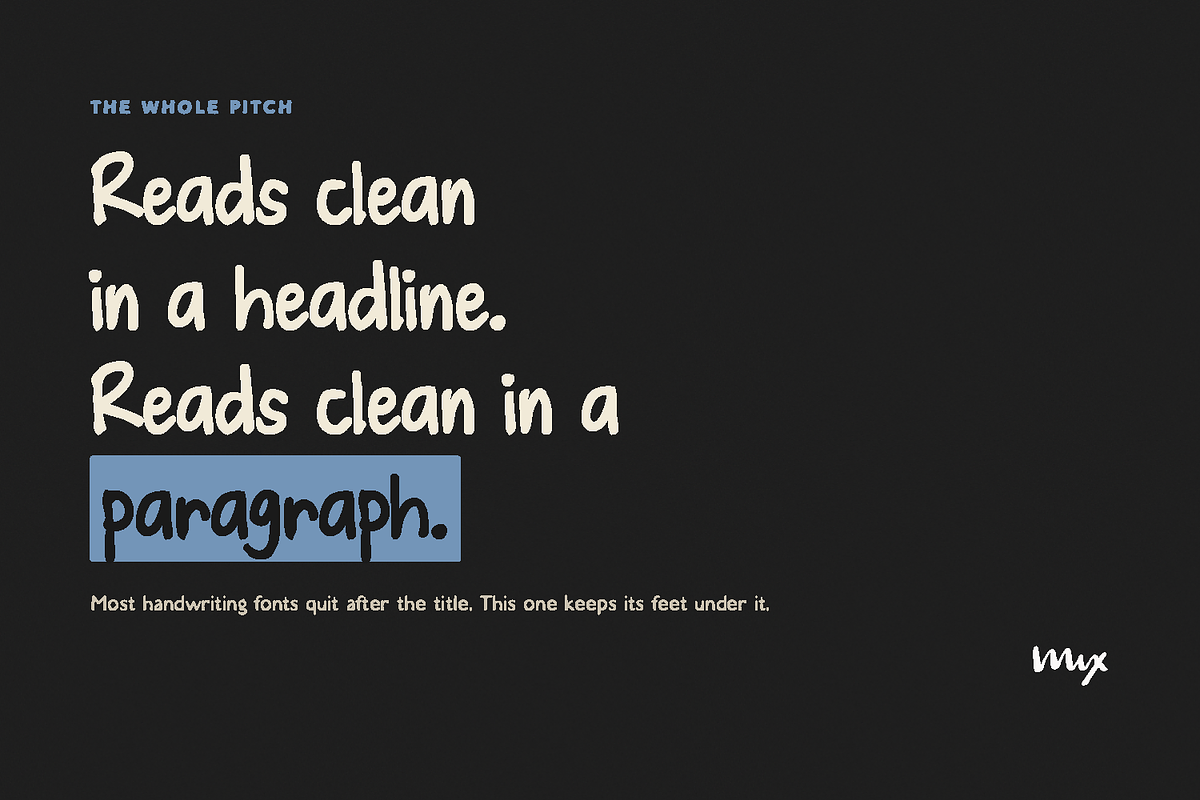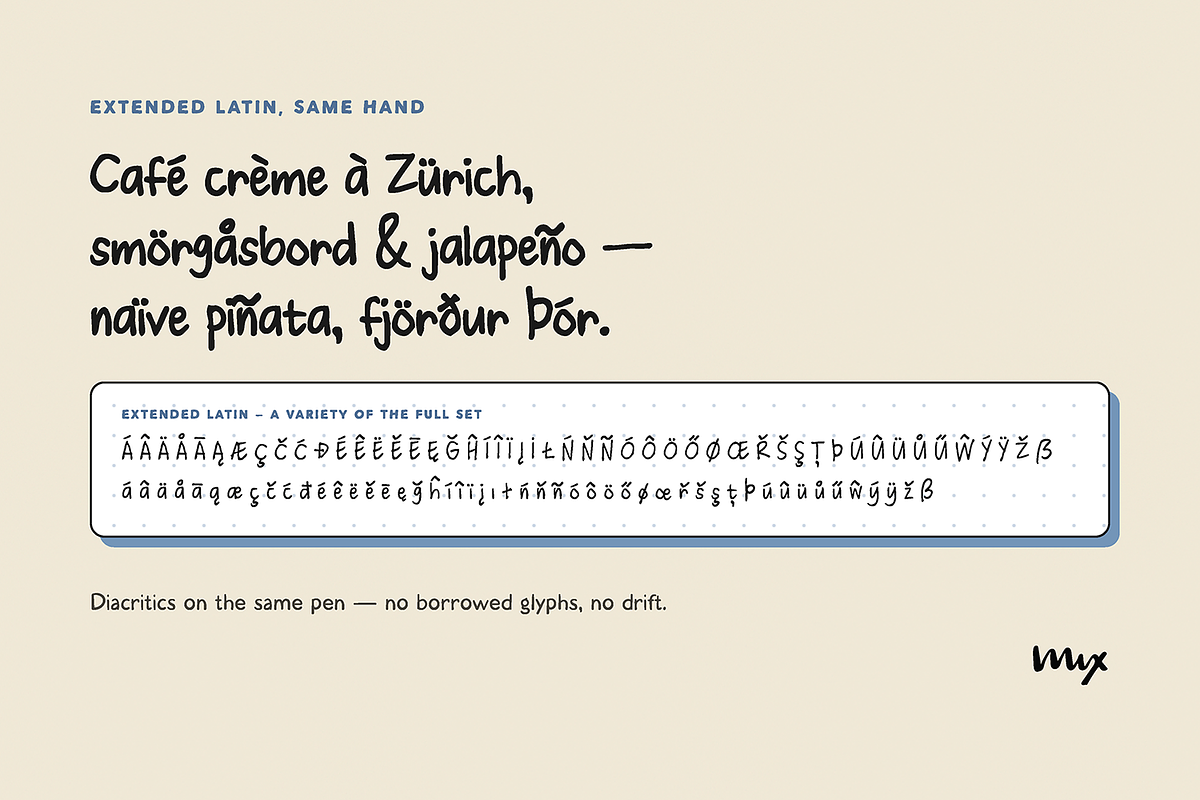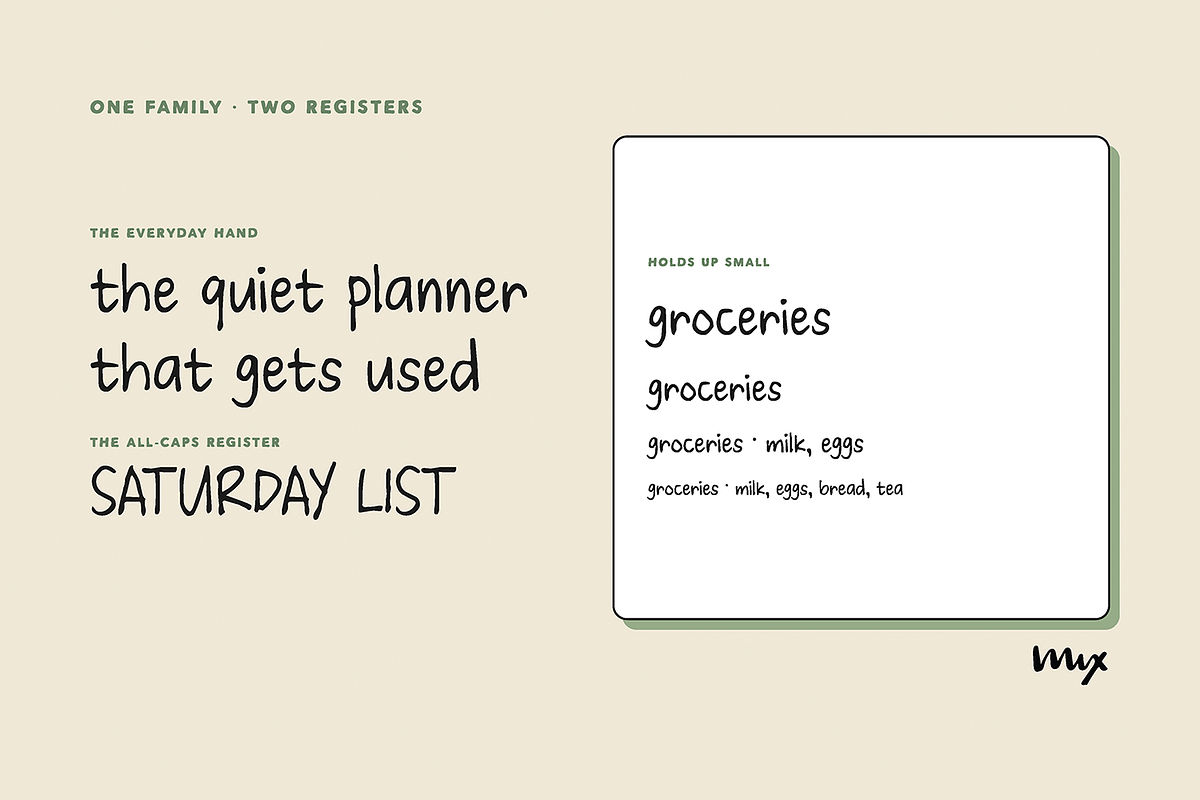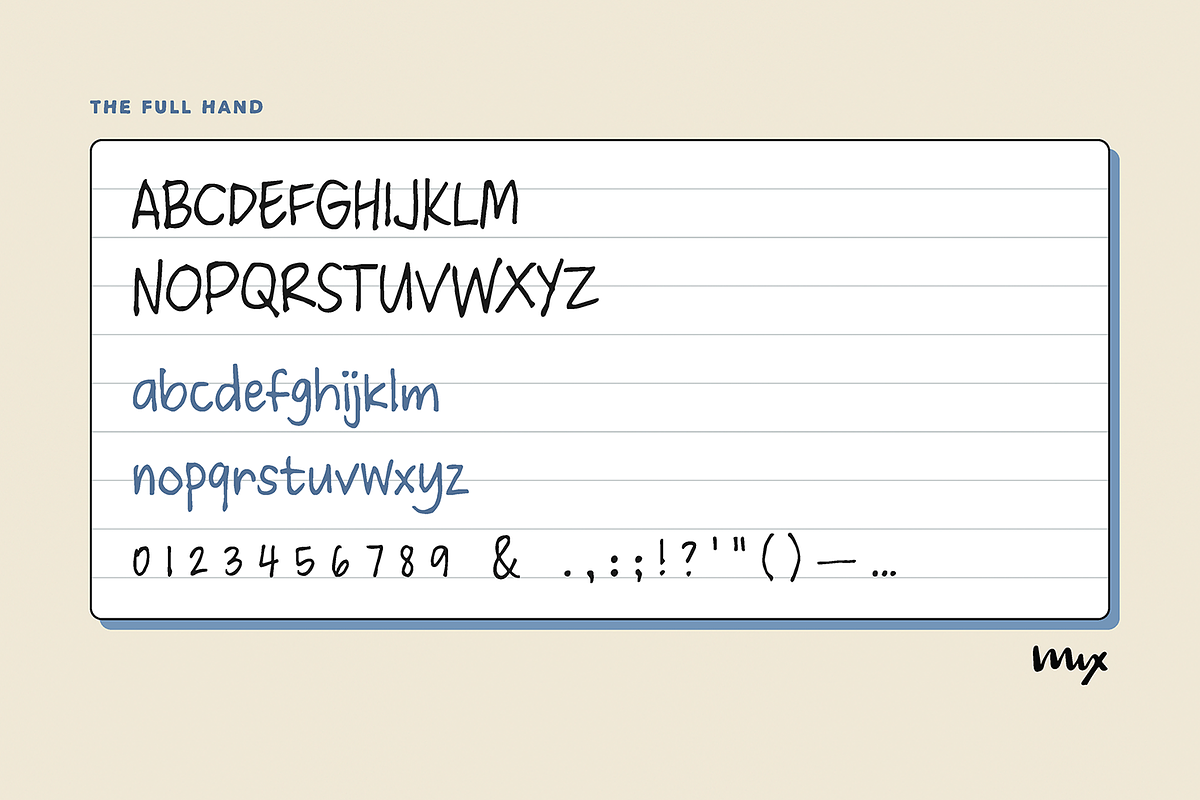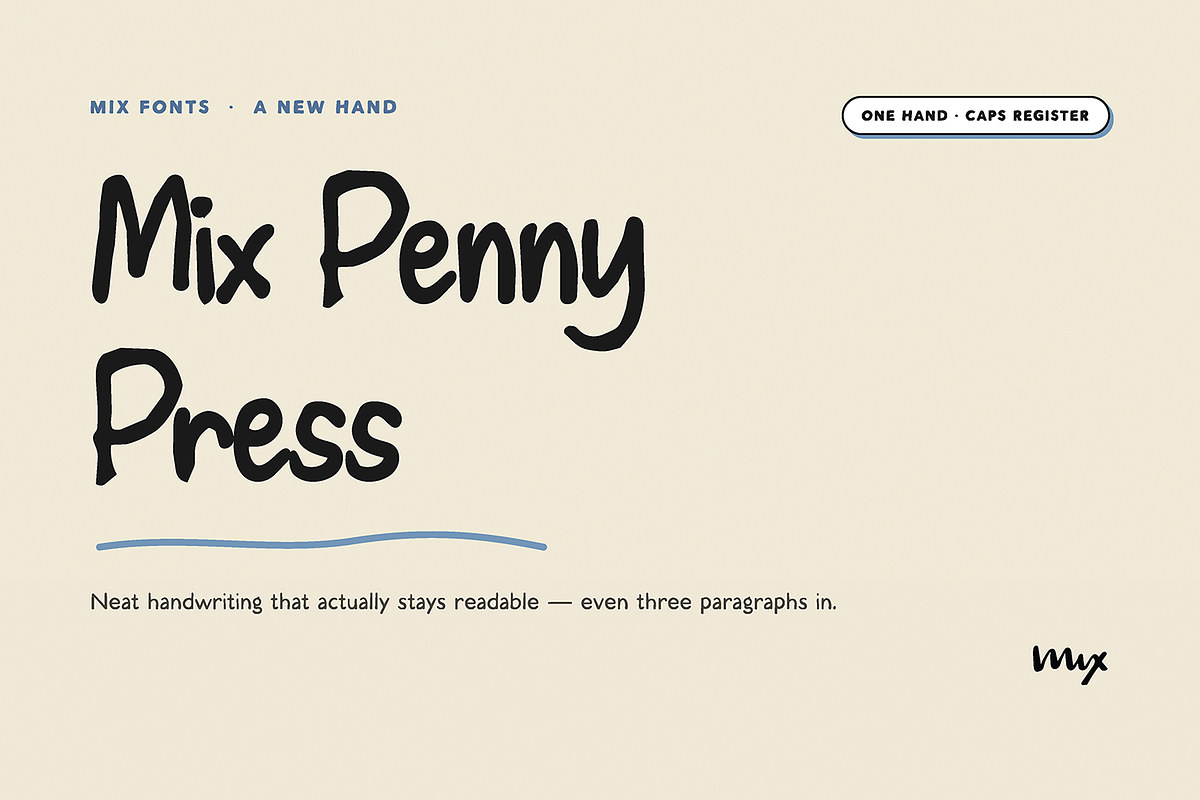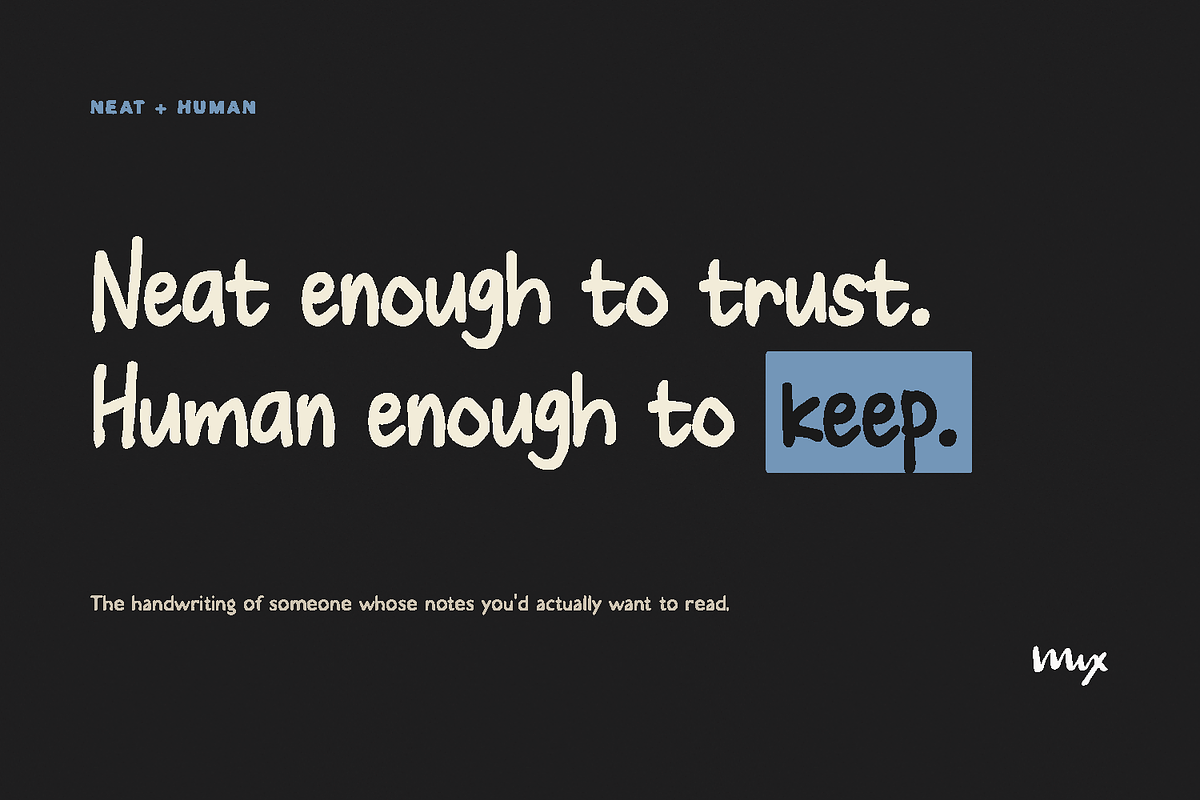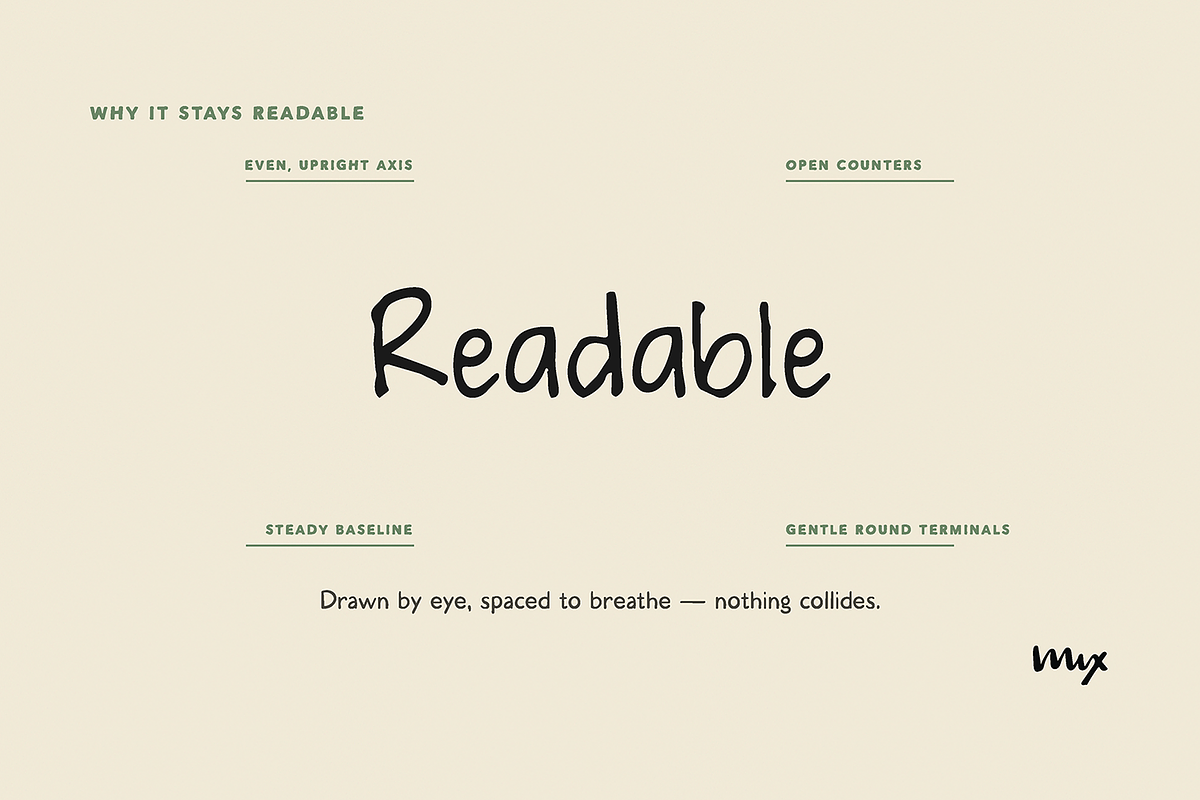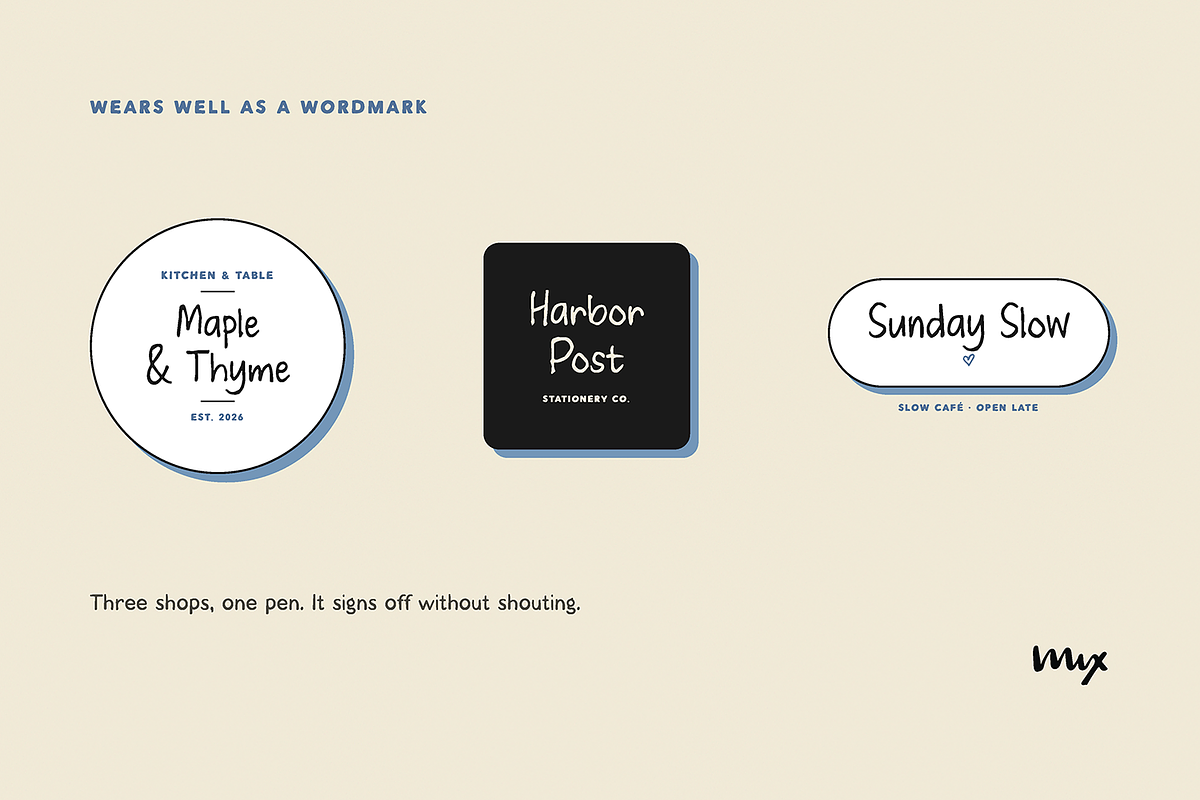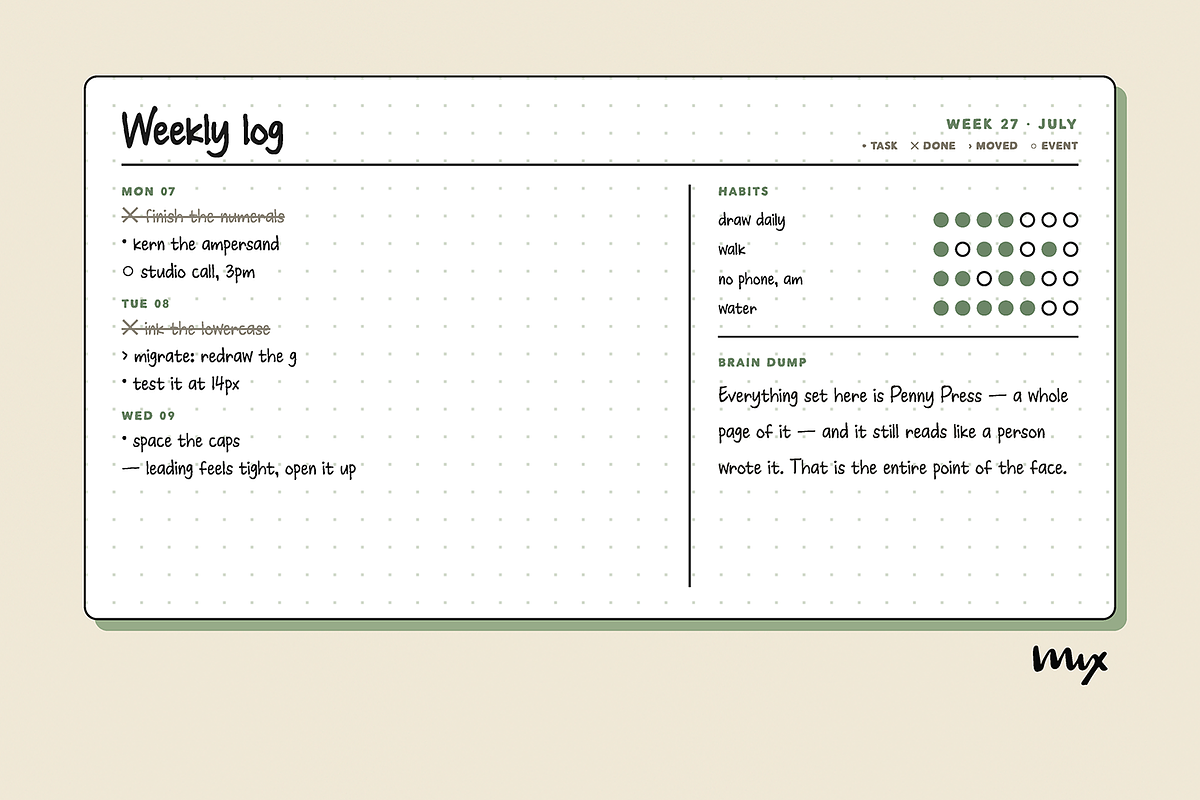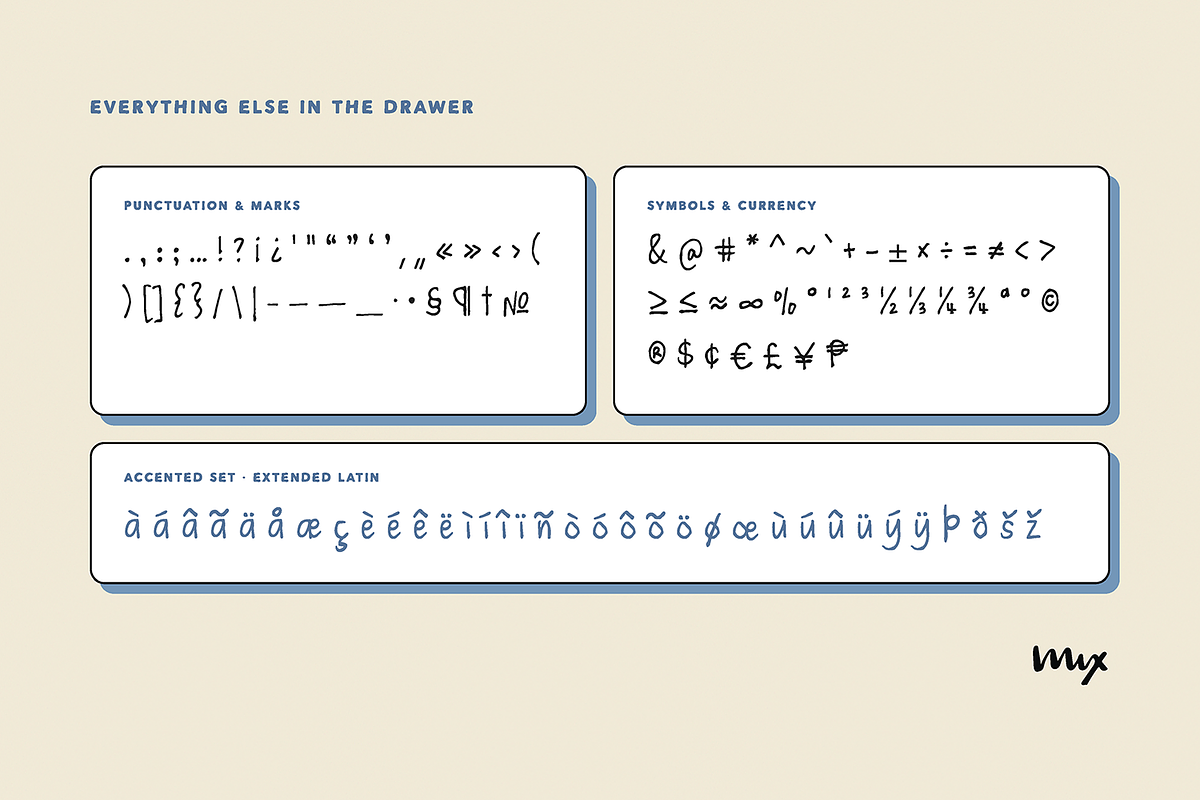
Mix Penny Press - Neat Handwriting
Neat handwriting that actually stays readable, even three paragraphs in. Most handwriting fonts fall apart past the title line. Penny Press holds up in real body text, with an even upright axis, open counters, a steady baseline, and round terminals that keep it legible at length.
It shows off in two registers, an everyday lowercase look and a bolder all-caps look, but it's one font, not two files. Built for anyone who needs handwriting that reads like a person actually wrote it and still works as a paragraph, not just a headline.
Great for digital planners, journaling templates, notebook pages, greeting cards, packaging, logos, and any project that needs a personal, legible hand.